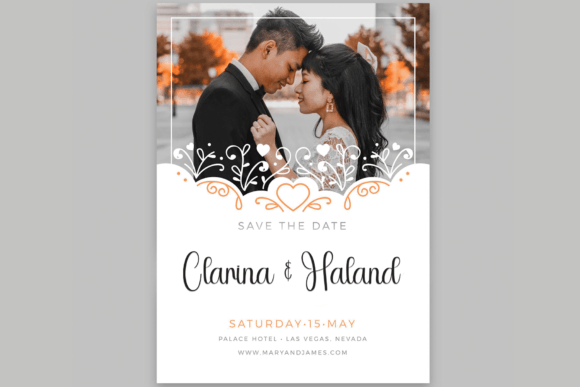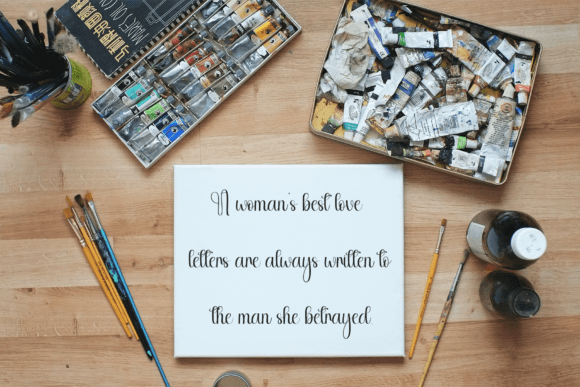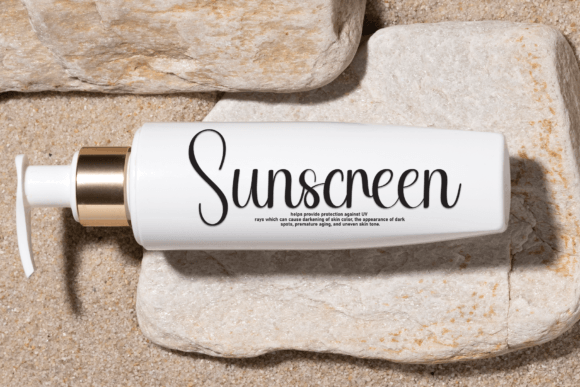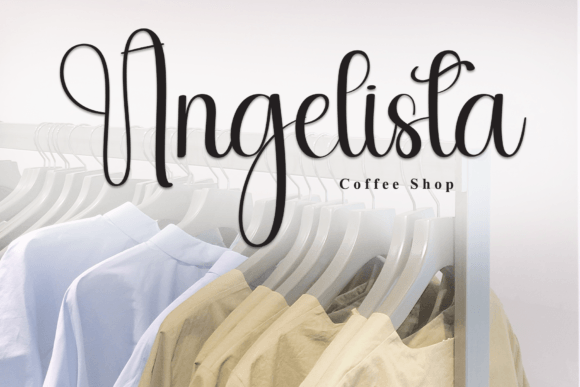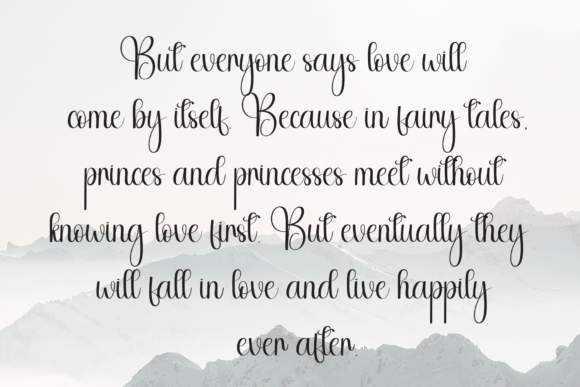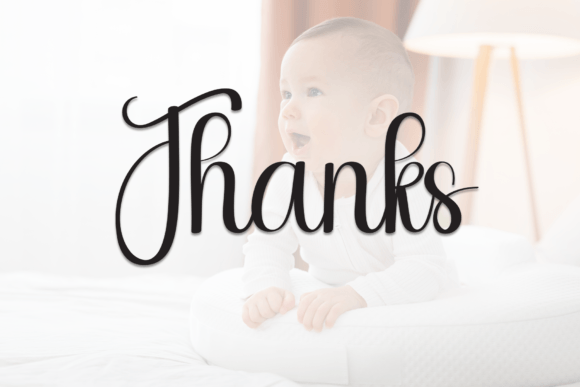
Babyday Font: The Ultimate Choice for Adding a Touch of Whimsy to Your Designs
Are you looking for a font that can add a dash of fun and playfulness to your design projects? Look no further than the Babyday font! This charming font exudes a sweet and friendly vibe, making it the perfect choice for designers and crafters who want to create unique and eye-catching designs. In this article, we’ll introduce you to the Babyday font, explore its features, and discuss how you can use it to bring a joyful spirit to your creative ventures.
The Charm of Babyday Font
The Babyday font is a delightful addition to any design project. Its undeniable cuteness is sure to capture the attention of your audience and leave a lasting impression. With its sweet and friendly vibe, this font is perfect for creating designs that are playful, fun, and engaging. Whether you’re designing wedding invitations, greeting cards, or any other type of project, the Babyday font is sure to add a touch of whimsy and charm.
Features of Babyday Font
The Babyday font comes with a range of features that make it an optimal choice for designers and crafters. Some of its key features include:
- Playful and Fun: The Babyday font is designed to add a playful and fun touch to your designs. Its unique and quirky style is sure to make your designs stand out from the crowd.
- Sweet and Friendly: This font exudes a sweet and friendly vibe, making it perfect for creating designs that are approachable and engaging.
- Personalized Touch: With the Babyday font, you can craft every text with a personalized touch. This font is perfect for creating custom designs that reflect your personality and style.
- Versatile: The Babyday font is versatile and can be used for a range of design projects, including wedding invitations, greeting cards, posters, and more.
Using Babyday Font in Your Designs
The Babyday font is easy to use and can be incorporated into your designs in a variety of ways. Here are some ideas for using this delightful font:
- Wedding Invitations: Add a touch of whimsy and romance to your wedding invitations with the Babyday font. This font is perfect for creating custom wedding invitations that reflect your personality and style.
- Greeting Cards: The Babyday font is perfect for creating custom greeting cards for special occasions such as birthdays, holidays, and more.
- Posters and Flyers: Use the Babyday font to create eye-catching posters and flyers that grab attention and leave a lasting impression.
- Social Media Graphics: The Babyday font can be used to create engaging social media graphics that reflect your brand’s personality and style.
Tips for Getting the Most Out of Babyday Font
Here are some tips for getting the most out of the Babyday font:
- Experiment with Different Sizes: The Babyday font looks great in a variety of sizes. Experiment with different sizes to find the one that works best for your design.
- Pair with Other Fonts: The Babyday font can be paired with other fonts to create a unique and eye-catching design. Experiment with different font combinations to find the one that works best for your project.
- Use in Combination with Images: The Babyday font looks great in combination with images. Use this font to add a touch of whimsy and charm to your designs.
The Babyday font is a delightful addition to any design project. Its sweet and friendly vibe, playful and fun style, and versatility make it the perfect choice for designers and crafters who want to add a touch of whimsy and charm to their designs. With its range of features and ease of use, the Babyday font is sure to become a favorite in your design toolkit. So why wait? Download the Babyday font today and start creating designs that are playful, fun, and engaging!